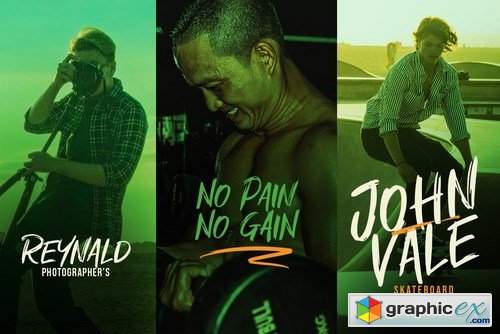
Maxico Brush Font
The Maxico is a fresh handwritten font brush, elegant and vintage feel character set. The Maxico font support multi-lingual, swashes, numerals, & punctuation. The Maxico font exclusive only in envato web.